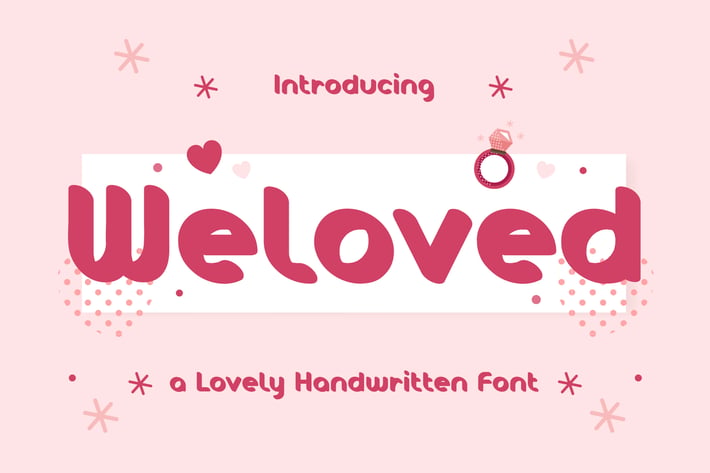
Weloved – Romantic Display Font
Weloved is a bold and lovely display font with a romantic theme.
Simple and easy to use, this font will be very beautiful if you mix it with your various craft designs.